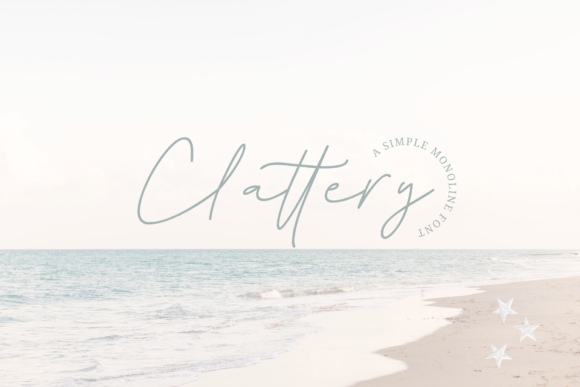
Immerse yourself in the ethereal beauty of Clattery Font, a delicate script that captivates with its elegant curves and effortless charm. With its monoline structure, Clattery exudes a timeless grace that adds a touch of sophistication to any design.
Unleash your creativity and let Clattery guide you as you craft captivating logos, enchanting invitations, alluring social media posts, and heartfelt greeting cards. Its versatile nature allows it to seamlessly blend into various styles, from classic and traditional to modern and whimsical.
Clattery's inherent charm lies in its ability to transform ordinary words into exquisite works of art. Its sweeping strokes and graceful loops create a visual symphony that dances across the page, inviting readers to immerse themselves in the beauty of your message.
Whether you're a seasoned designer or just starting your creative journey, Clattery is the perfect font to elevate your projects to new heights of charm and elegance. Its user-friendly nature makes it accessible to all, while its boundless creative potential empowers you to bring your unique vision to life.
So, embrace the allure of Clattery Font and embark on a journey of beauty and creativity. Let its delicate lines enchant your audience and create designs that leave a lasting impression. Welcome Clattery into your creative arsenal and unlock a world of boundless possibilities.